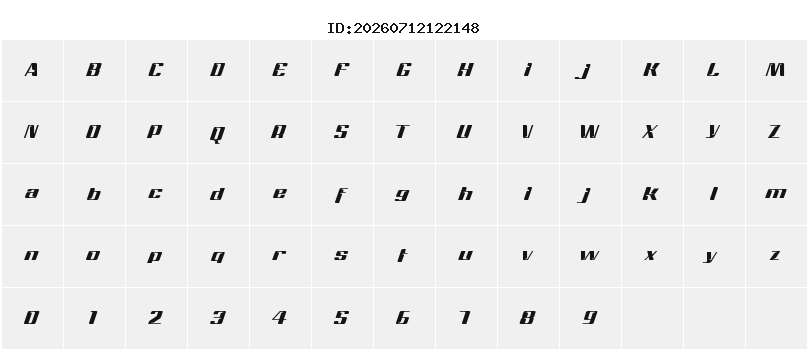
• Font Name: Magenta BBT
• Full Font Name: Magenta BBT
• Version: Version 1.00 - 2009, initial release
• Designer: Florian Bambhout
• Manufacturer: Florian Bambhout
About Magenta BBT.ttf
Magenta BBT.ttf is a modern, elegant sans-serif font designed for ultimate readability and visual harmony. Perfect for branding, headlines, web design, and print materials.